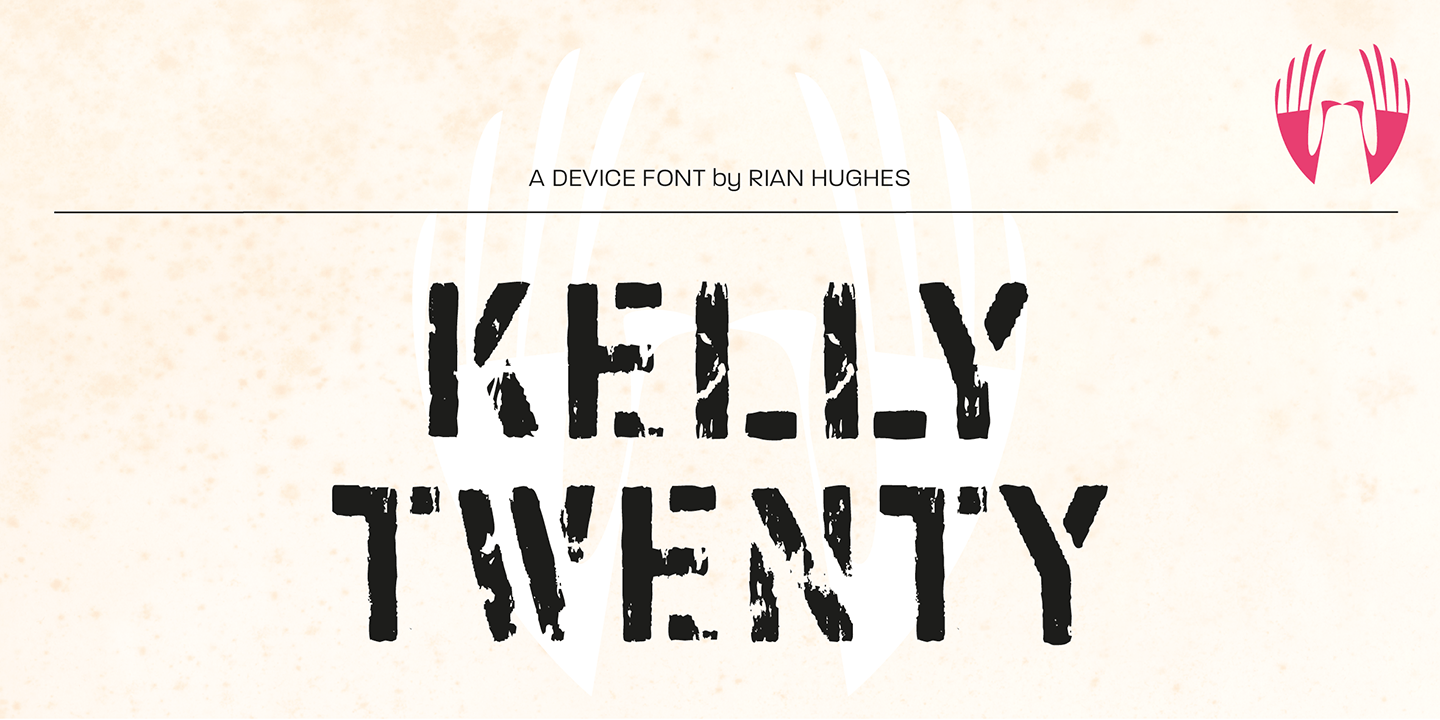
Kelly Twenty
Kelly Twenty is a single-style display font from Device with a distressed, graffiti-inspired look that feels raw, urban, and deliberately weathered. Its rough texture gives lettering an immediate streetwise edge, making it a strong choice when you want type with attitude instead of polish.
Use it for posters, apparel, packaging, social graphics, or branding that leans bold and expressive. If your project calls for a gritty special-effect style with a hand-marked, city-wall energy, this face delivers that look quickly and clearly without feeling overly refined.